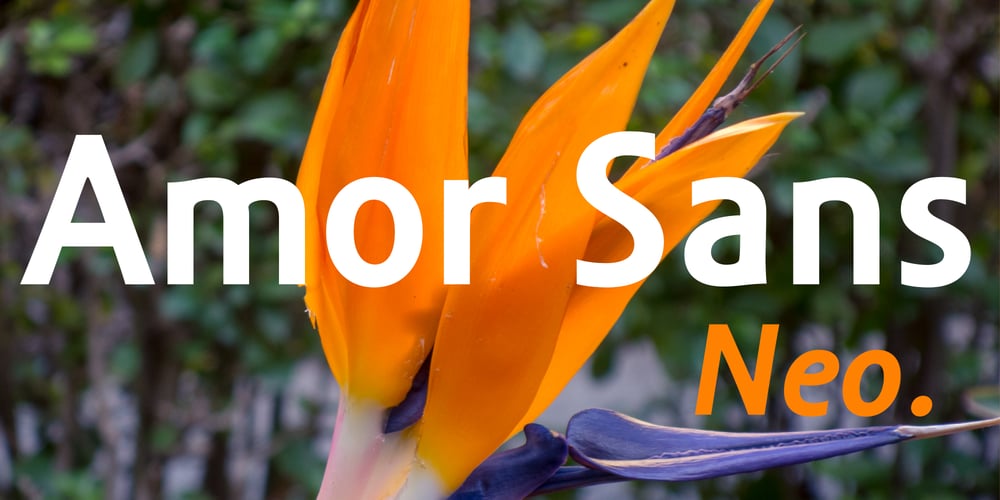
Amor Sans Neo Font Family was designed by František Štorm and published by Storm Type Foundry. Amor Sans Neo contains 10 styles and family package options. The peculiarity of this alphabet is already its origin: the basic drawing was created by narrowing Roman capitals with corresponding lowercase letters. The goal was to create a monumental font for architecture and book covers. Surprisingly, however, Amor Sans has found its way into corporate identity, offices, magazines and packaging design. Its slightly narrowed, economical design predestines it for quick reading of shorter texts, which is why it is also excellent for theater posters and programs. Its moderate width proportions and rich selection of arrows and pointers are excellently used in public spaces. Amor Sans has a neutral expression that works harmoniously in any architectural style. It will serve as an orientation system in a medieval monastery as well as in a modern building, while remaining distinctive even in the dark. The family consists of ten cuts with many functions, such as small capitals, Cyrillic, several types of numerals, a number of ligatures and stylistic alternatives.